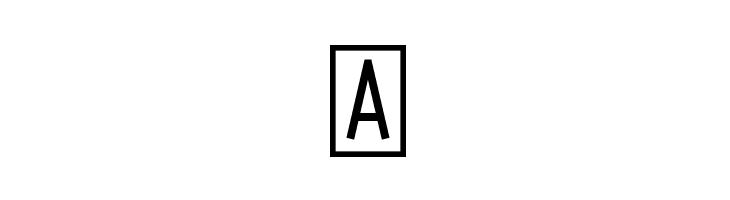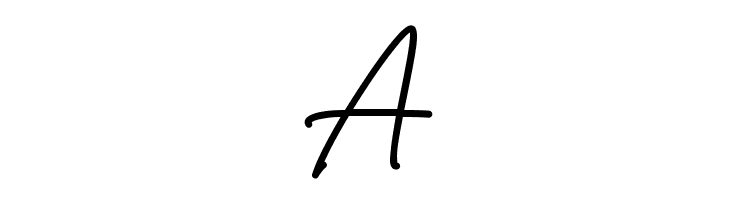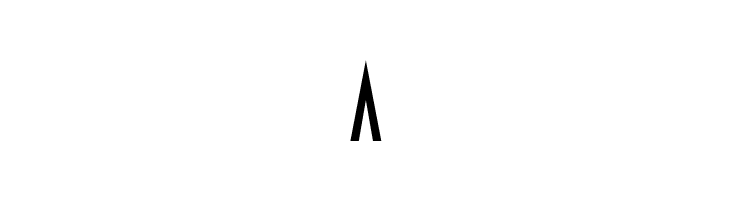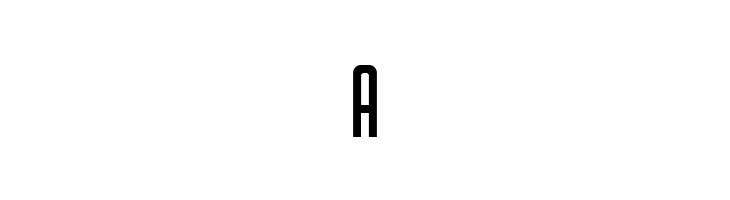
A bold, italic font with rounded, dynamic characters.
A bold, rounded font with a retro and playful style.
A bold, rounded font with a modern-retro vibe and narrow structure.
A bold, handwritten font with a casual and playful style.
A playful, rounded font with smooth curves and consistent stroke width.
A decorative font with letters encased in a rose motif, offering an artistic and elegant style.
A modern, geometric font with characters enclosed in square frames.
A bold, modern sans-serif font with geometric influences and rounded edges.
A playful, hand-drawn font with characters in irregular squares, perfect for fun and creative projects.
A playful, hand-drawn font with bold, rounded characters and a whimsical style.
A flowing, handwritten cursive font with elegant, connected letters.
A bold, elegant script font with flowing, connected characters.
A playful, handwritten font with smooth, rounded edges and a casual style.
A playful, handwritten script font with a casual and fluid style.
A bold, expressive script font with flowing, cursive letterforms.
A raw, expressive handwritten font with varying stroke thickness and irregular shapes.
A bold, modern sans-serif font with uniform stroke width and balanced spacing.
A smooth, cursive handwritten font with elegant, flowing characters.
A playful, handwritten font with bold, rounded letters and a slight slant.
A playful, hand-drawn font with bold, rounded characters perfect for fun and creative projects.
A bold, playful font with rounded edges and a friendly appearance.
A playful, hand-drawn font with a sketch-like, textured appearance.
A bold, playful handwritten font with a comic-like style.
A bold, distressed font with a vintage, industrial feel.
A playful, handwritten font with rounded edges and a casual style.
A geometric, Art Deco-inspired font with sharp angles and elegant curves.
A bold, italic serif font with sharp serifs and a dynamic style.
A bold, sharp serif font with a vintage, gothic flair.
A bold, modern sans-serif font with a geometric and condensed style.
A bold, tall, and narrow font with a modern, geometric style.
A playful, casual handwritten font with smooth curves and consistent stroke width.
A bold, playful handwritten font with thick strokes and rounded edges.
A bold, expressive script font with a lively, handwritten style.
A bold, rounded font with a playful and friendly appearance.